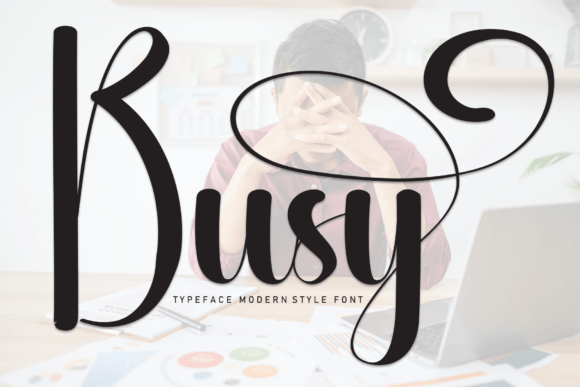
The Busy Font: A Sweet and Friendly Handwritten Delight
I’ll never forget the time I was working on a wedding invitation project, and my client asked for a font that was “sweet, friendly, and not too formal.” I scoured the internet, tried out dozens of fonts, but nothing seemed quite right. That was until I stumbled upon the Busy font. It was love at first sight! ✨
An Honest Review of Busy Font
- ✨ Fresh and casual vibe that’s perfect for creative projects
- ✅ Sweet and friendly tone that’s great for wedding invitations, cards, and more
- 💕 Beautiful handwritten feel that’s both elegant and approachable
- 👍 Highly legible, even at smaller font sizes
While Busy font is an amazing addition to any design project, there are a few things to keep in mind: 🤔
- ⚠️ Some letters may have slightly inconsistent spacing, which can affect the overall flow of text
- ⚠️ Limited availability of special characters and glyphs (but we’ll get to that later)
A Practical Guide to Using Busy Font
- Experiment with OpenType features like ligatures and stylistic alternates to add some extra flair to your text
The Story Behind Busy Font
Busy font was designed with love and care by a talented type designer who wanted to create a font that was both sweet and friendly. Inspired by handwritten letters and everyday notes, Busy font is the perfect blend of casual and elegant. Whether you’re designing wedding invitations, cards, or social media graphics, Busy font is sure to bring a touch of warmth and personality to your projects.